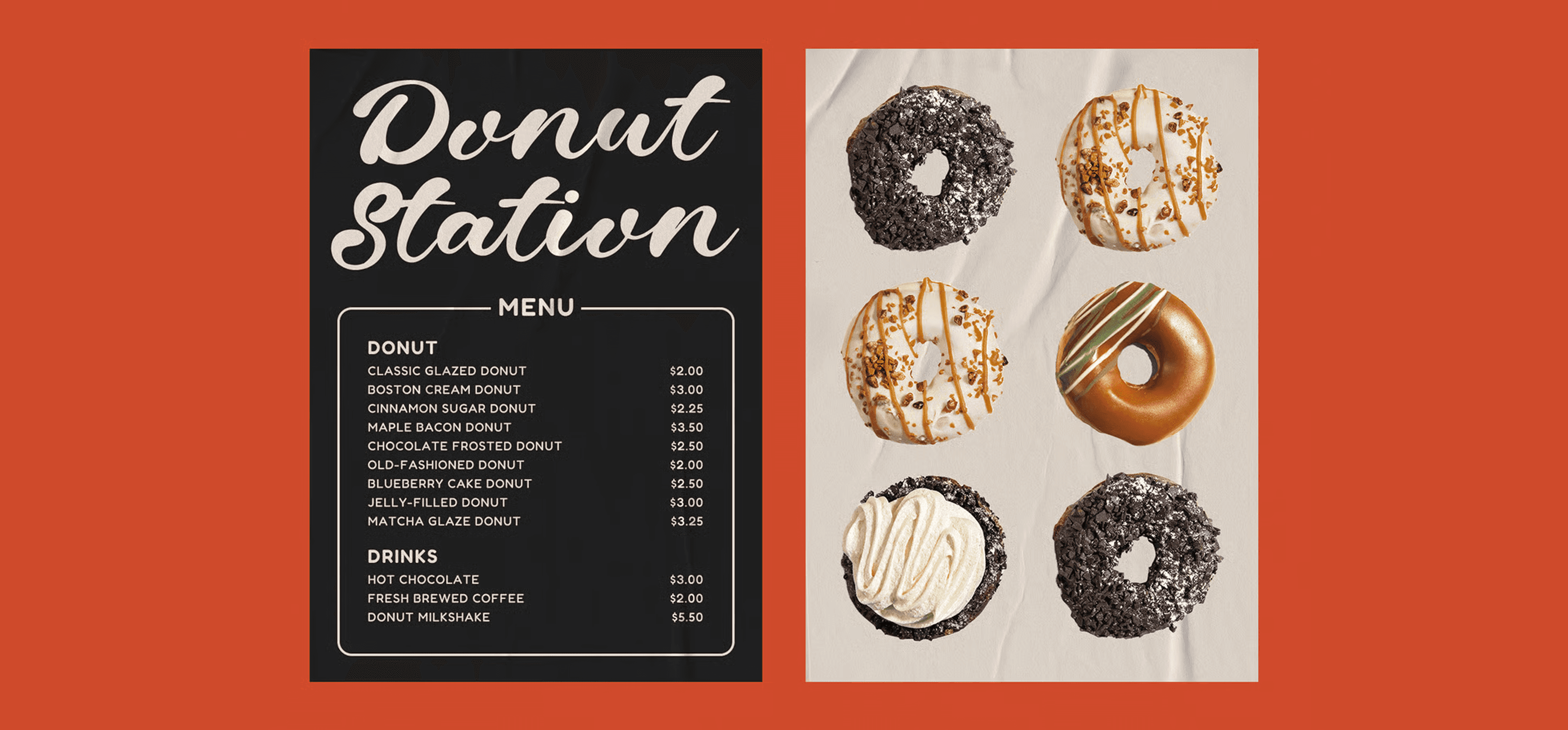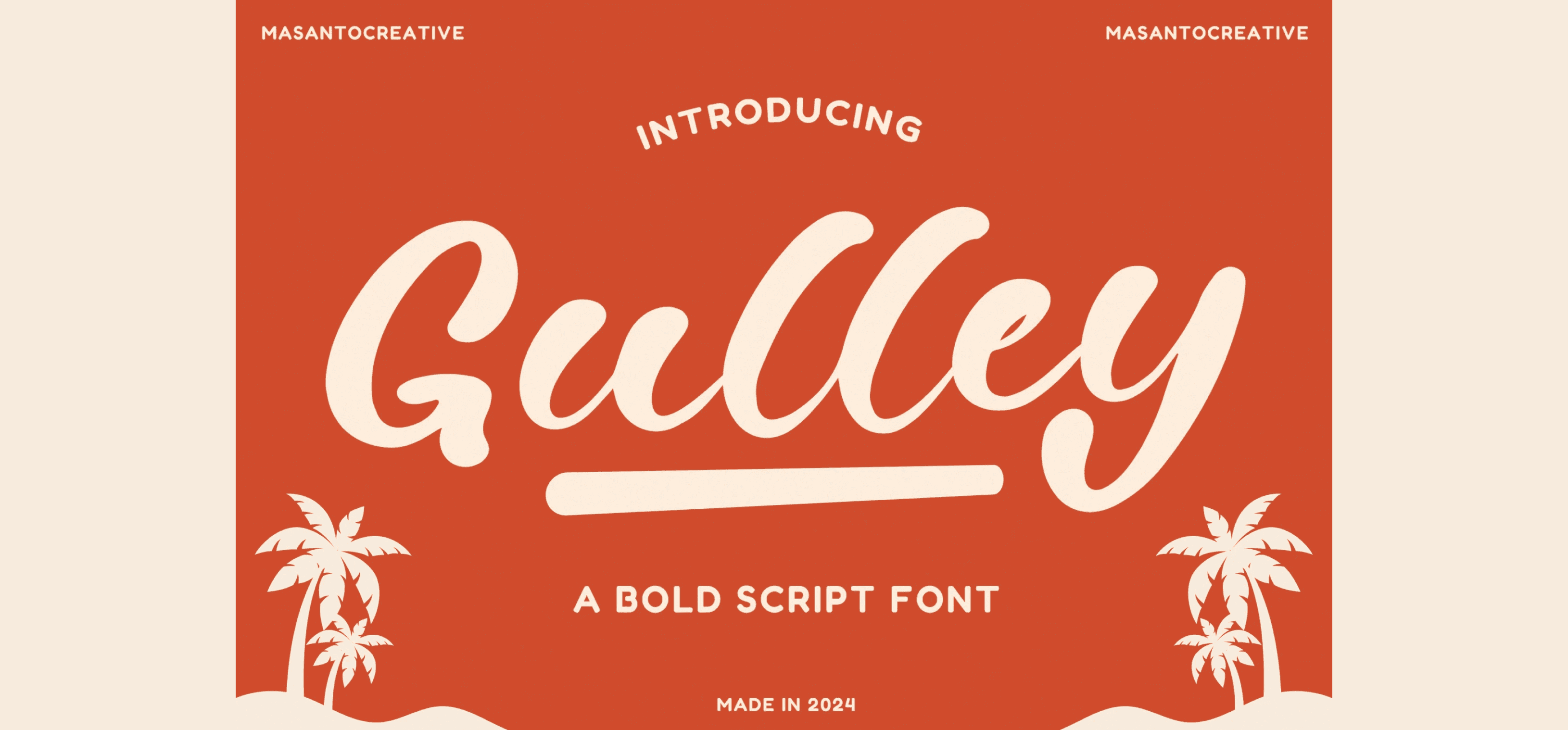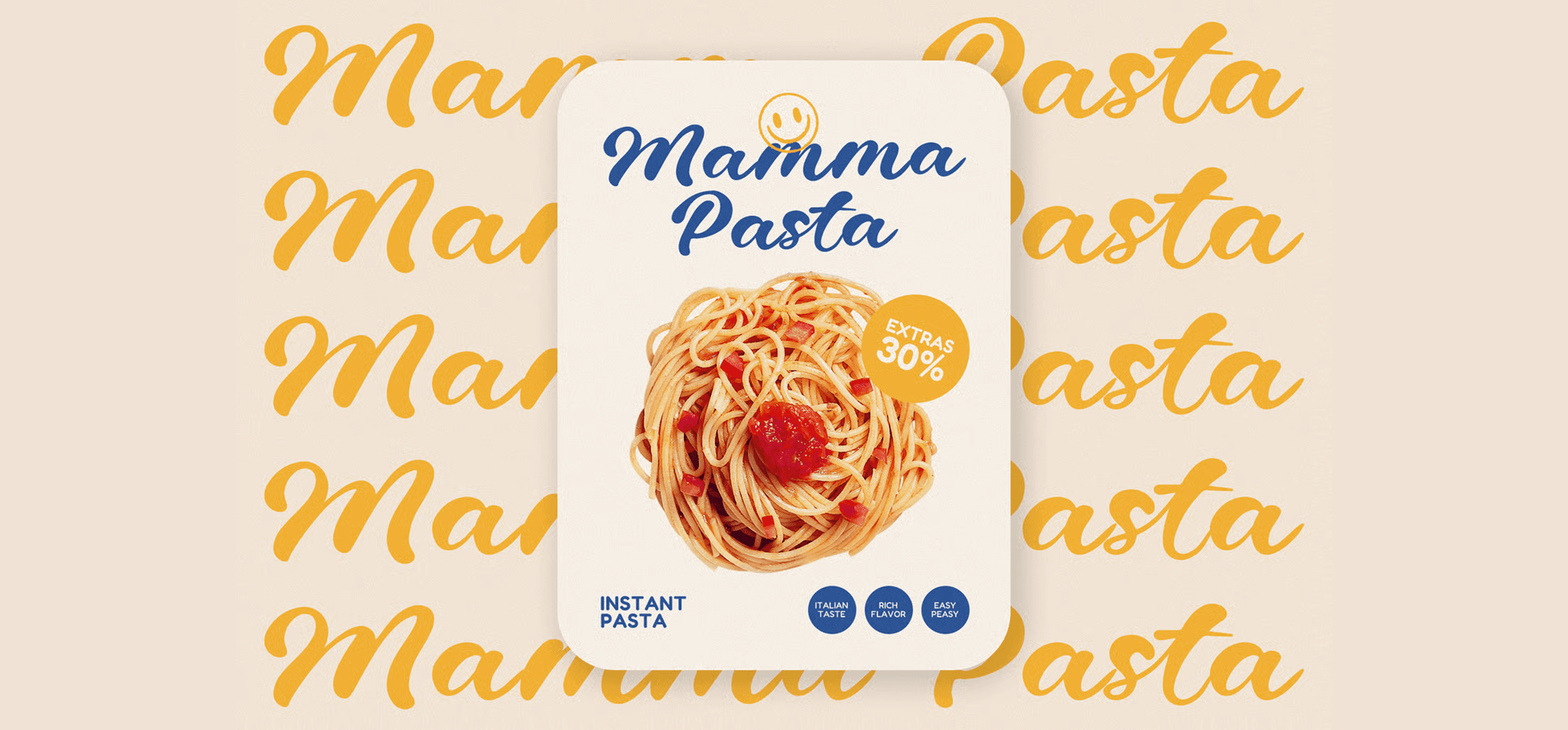
Gulley is a bold script typeface with dynamic strokes and a hand-drawn look, designed to create strong visual impact in logos, headlines, packaging, and apparel design. Its thick curves and energetic flow give it a retro-inspired personality, making it suitable for vintage themes, custom typography, and branding projects. The font includes uppercase and lowercase letters, punctuation, numerals, and multilingual support.